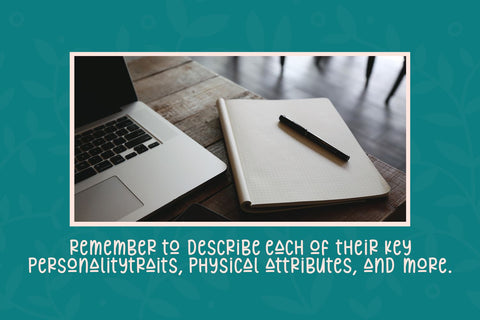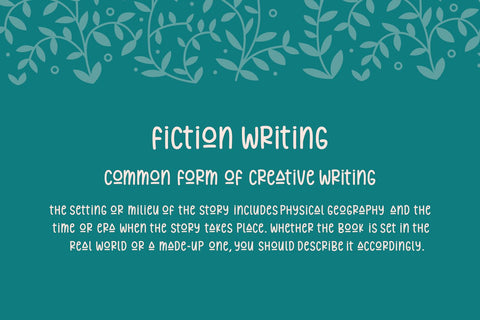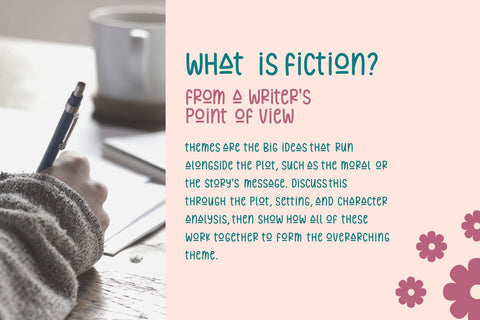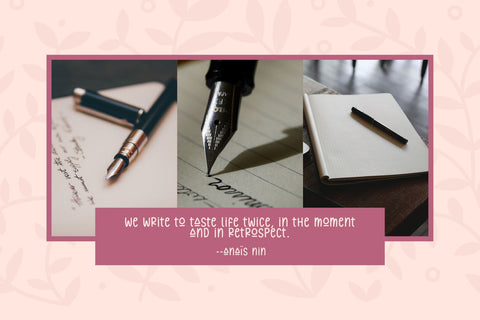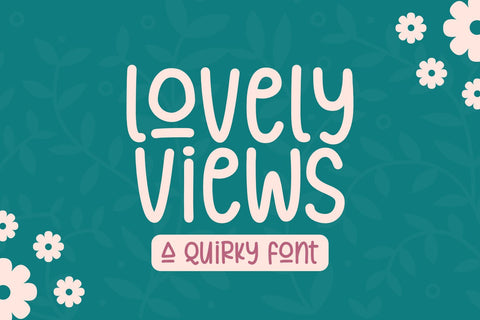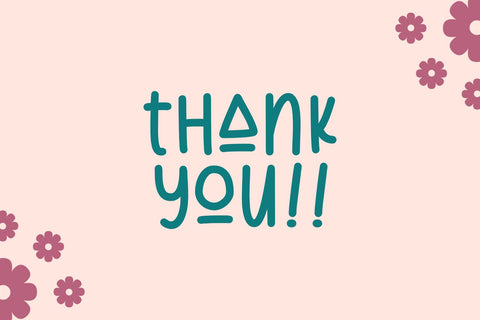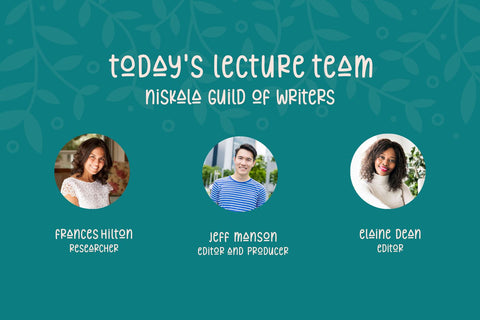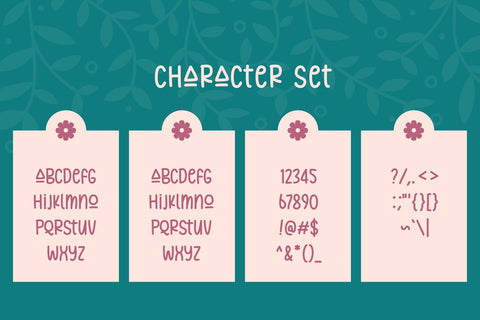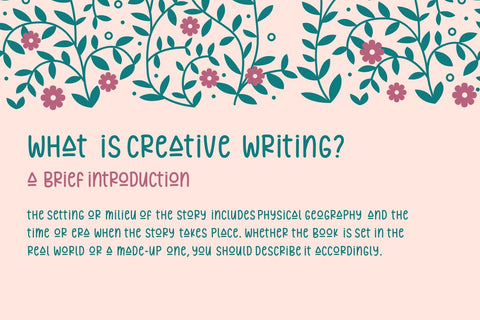
Lovely Views - a Quirky Font
Lovely Views is a cute, fun, quirky handwritten font.
The capital and lowercase letters are the same.
This font does include accent characters.